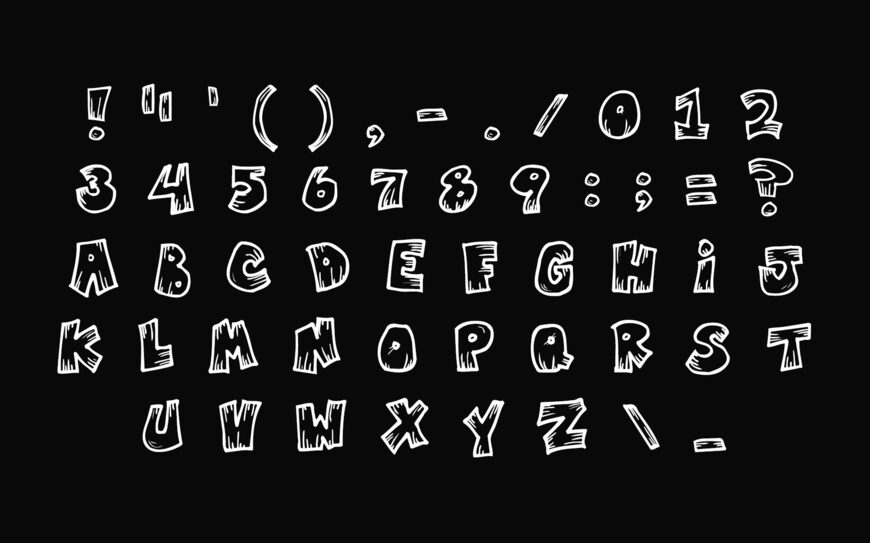
Mister Vampire is a playful cartoon font with bold, outlined irregular letterforms and a spooky personality. Its hand-drawn appearance brings a fun horror-inspired touch to Halloween posters, comic titles, children’s projects, party invitations, logos, and themed merchandise. Perfect for designs that need to feel creepy, energetic, and humorous without becoming overly frightening.